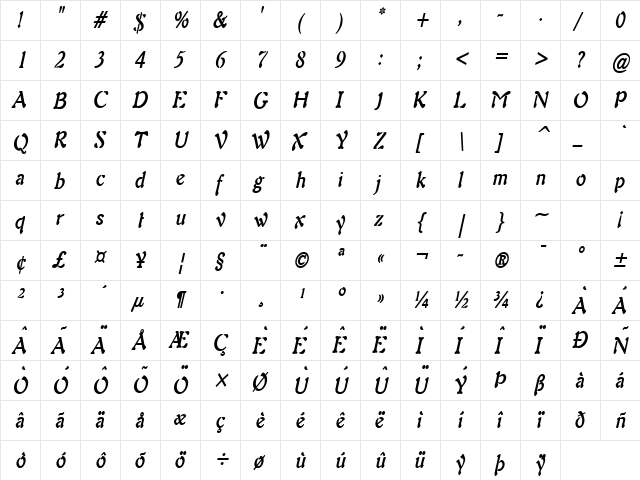
Freedom 9 Thin BoldItalic
Design Context for Freedom 9 Thin Typeface
Freedom 9 Thin is a composed and adaptable typeface that performs quietly and consistently across a wide range of design contexts. The dynamic lean of this cut emphasises speed and emphasis in any layout. The heavy weight commands attention and anchors typographic hierarchies.
Pro Tip: Use Freedom 9 Thin for emphasis, pull quotes, and subheadings where its slanted energy can add rhythm to the layout.